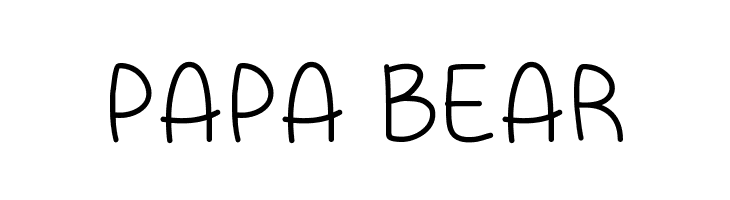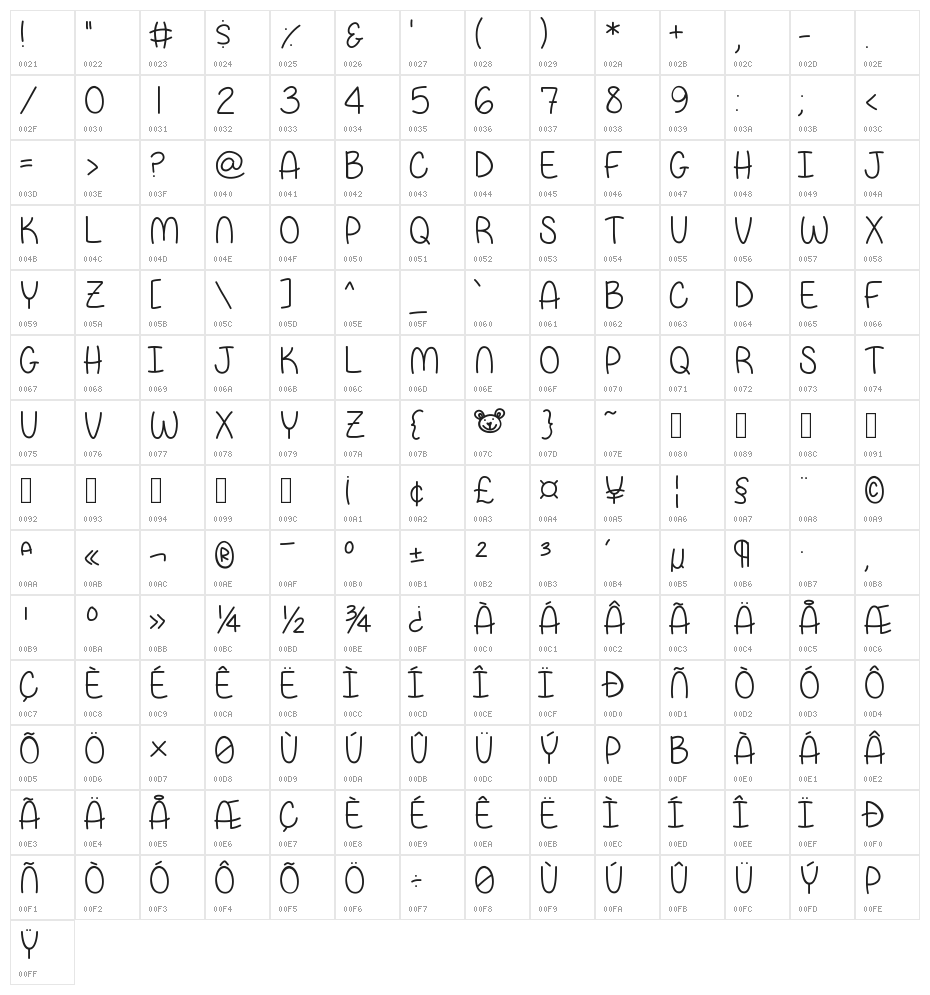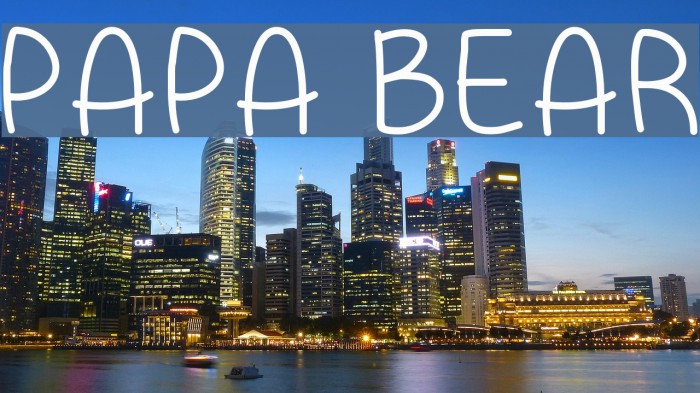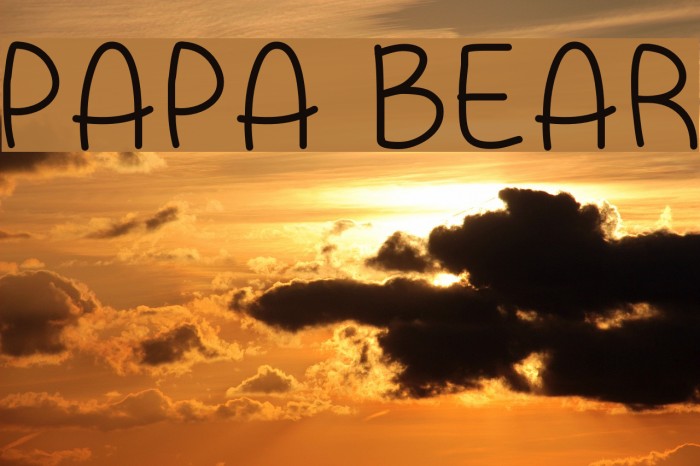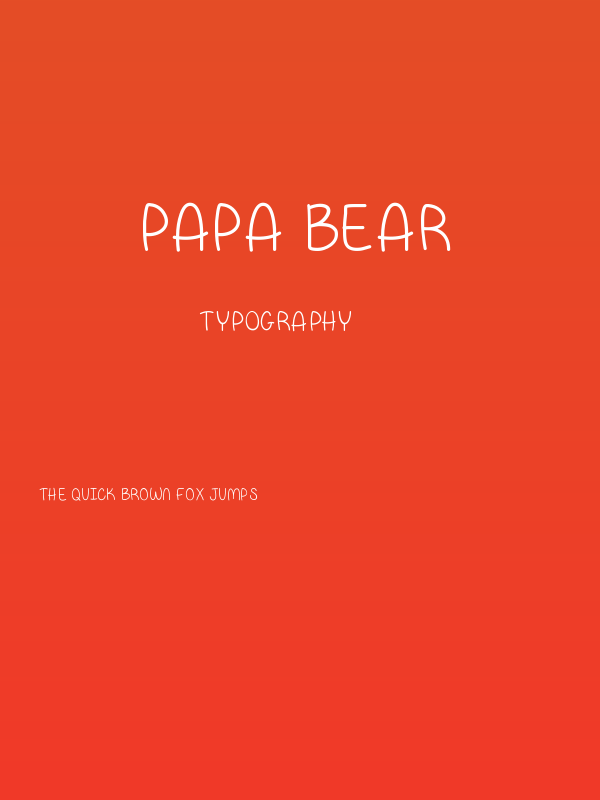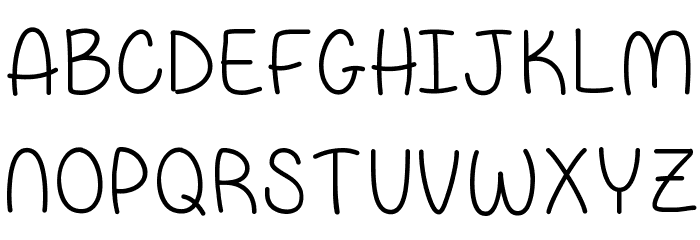
Papa Bear Font
Papa Bear Description
This playful and whimsical font features a handwritten style with a casual and friendly appearance. The characters are rounded and slightly irregular, giving them a charming, informal look. The uppercase and lowercase letters maintain a consistent style, with smooth curves and a slight tilt that adds to the font's approachable feel. The numbers and special characters are designed to match the overall aesthetic, ensuring a cohesive look across all text. This font is perfect for projects that require a personal touch, such as invitations, greeting cards, and children's books.
| Proposed Projects | Ideal for invitations, greeting cards, children's books, and playful branding. |